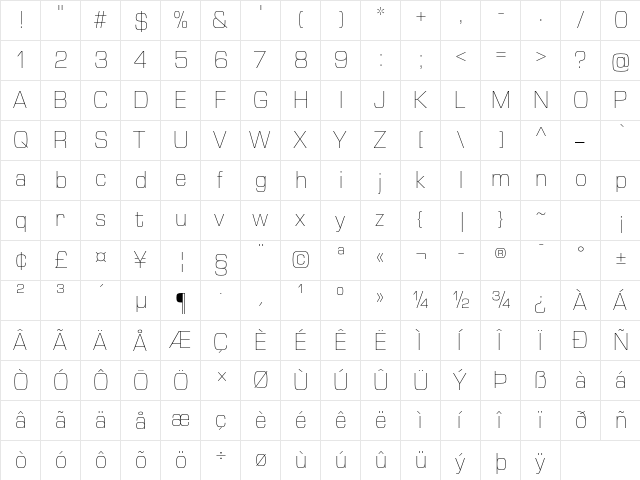
Eurostile Next LT Pro Ultra Light
| Foundry | Linotype GmbH |
| Designer | Linotype Design Studio |
Design Context for Eurostile Next LT Pro Typeface
Eurostile Next LT Pro offers clean, dependable letterforms without strong stylistic allegiance, making it a practical choice for designers who need flexibility. The delicate stroke weight brings airiness and refinement to layouts.